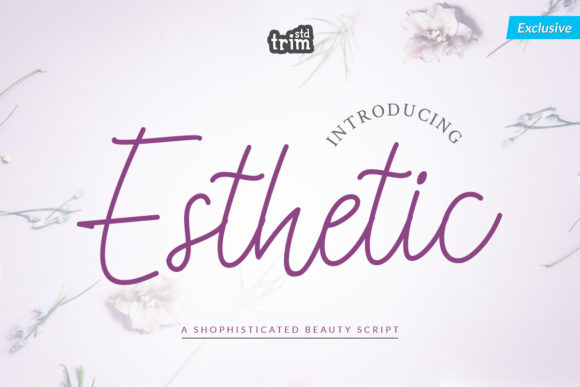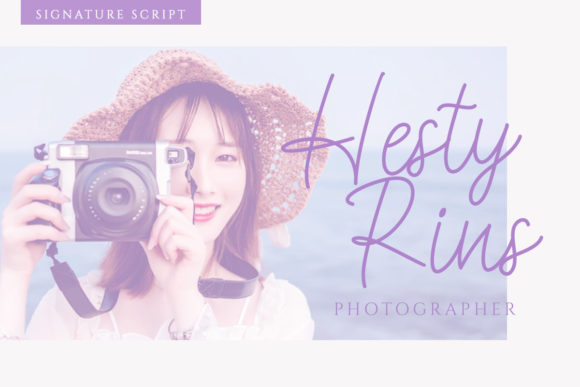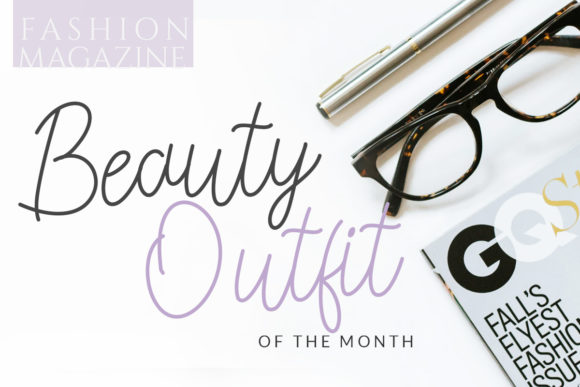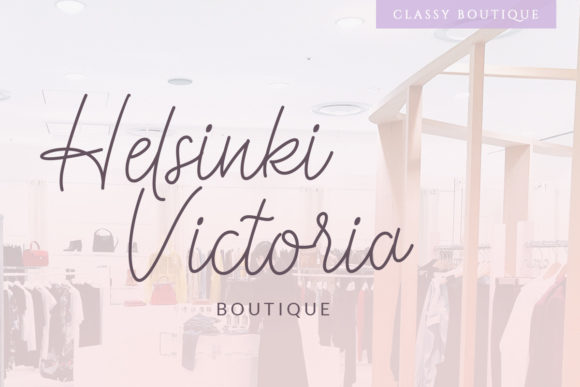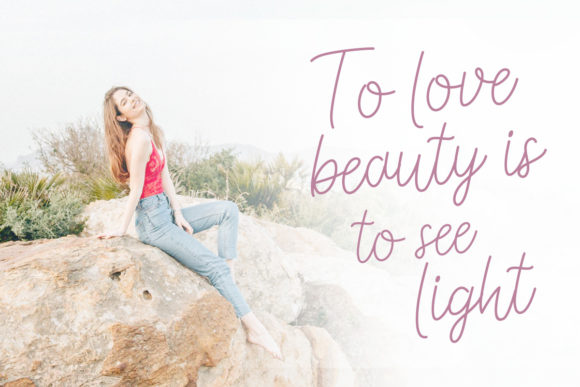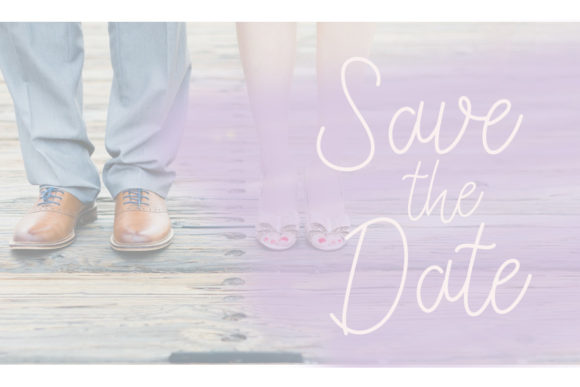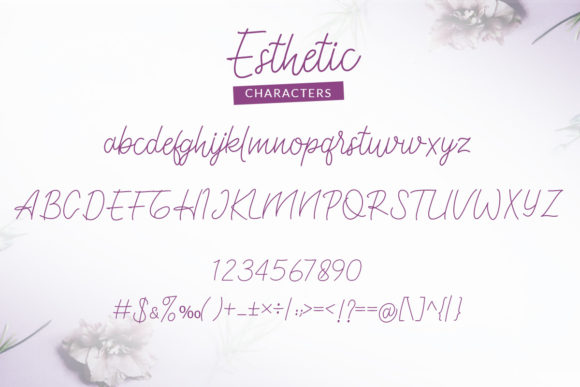
Esthetic Font
About Esthetic Font
Esthetic is a beautiful handwritten script with natural style. It will add a romantic touch to any crafting project!